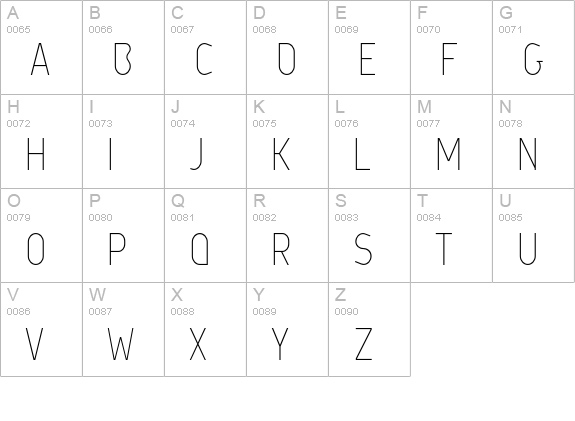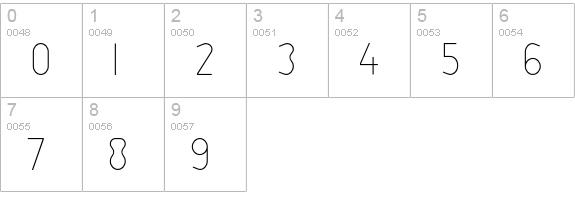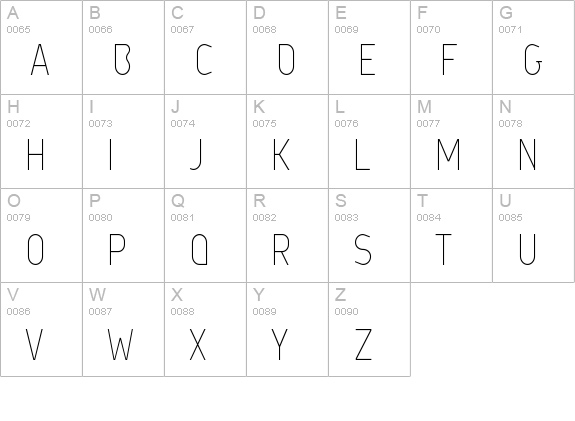
Metsys-Thin is a delicate, low-contrast variant in the Metsys typeface family \xE2\x80\x94 well suited to fashion editorial, minimal branding, and high-contrast display.
Metsys-Thin font is a sleek and modern typeface that exudes elegance and sophistication. With its thin strokes and clean lines, this font is perfect for adding a touch of refinement to any project. Whether you're working on a logo, branding materials, or a website design, Metsys-Thin font will elevate your work with its minimalist aesthetic. What's even better is that Metsys-Thin font is available for free download at FontsMarket.com. You can easily access this stylish and versatile font to enhance your creative projects without any cost. Embrace the beauty and simplicity of Metsys-Thin font in your designs and make a lasting impression with its timeless appeal.